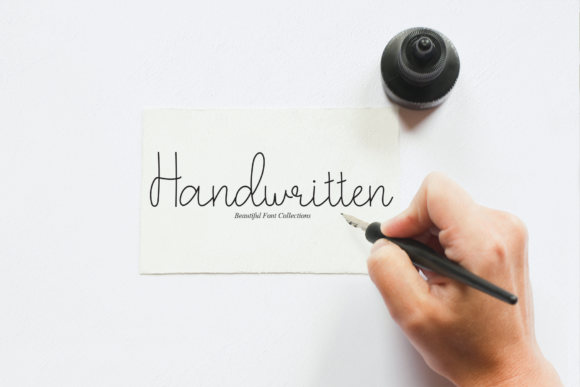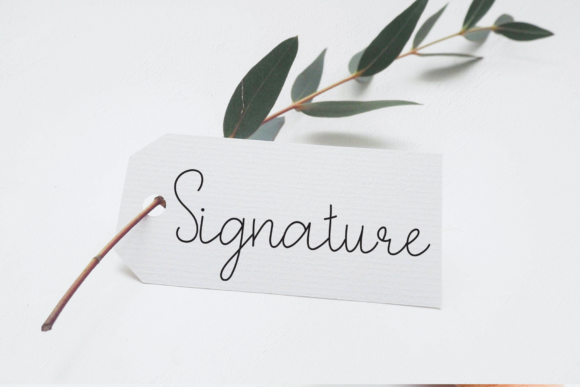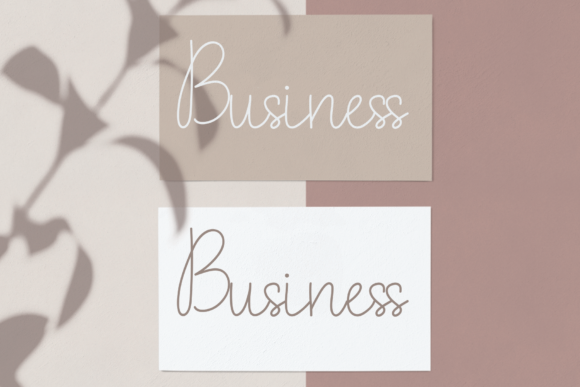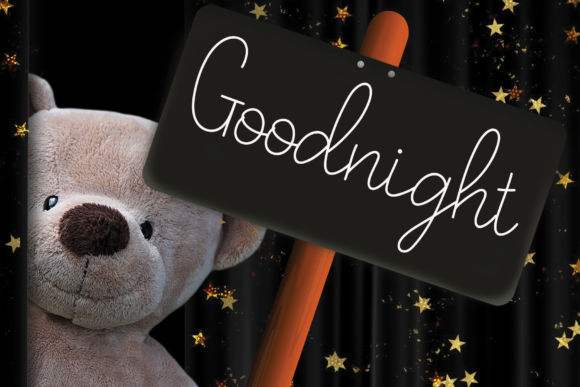
Introducing Already Font: Elevate Your Designs with Elegance and Sophistication
In the world of typography, a well-crafted font can make all the difference in transforming a design from ordinary to extraordinary. For designers and crafters seeking a touch of elegance and contemporary flair, Already Font emerges as a stellar choice. This beautiful script font is meticulously designed to bring a perfect balance of form and function, enhancing the aesthetic appeal of any project it becomes a part of.
The Essence of Already Font
Already Font is characterized by its elegant script style, imbued with a contemporary feel that resonates with modern design sensibilities. It strikes a perfect chord between being not too thin and not too bold, making it versatile for a wide range of applications. Whether you’re working on a branding project, a wedding invitation, a fashion blog, or any other creative endeavor, Already Font promises to add a sophisticated touch that elevates your work.
Balanced and Varied: The Design Philosophy
The design of Already Font is rooted in a deep understanding of typographic balance and variation. The creator has focused on ensuring that the font is neither too delicate nor too overpowering. This balance ensures that your text remains legible and visually appealing across different sizes and applications. Moreover, the varied strokes and elegant ligatures in Already Font contribute to its unique charm, allowing designers to craft compelling narratives through their typography.
Perfect for a Myriad of Projects
The versatility of Already Font makes it suitable for an array of design projects. Here are a few examples where this font truly shines:
- Branding and Logotypes: The elegant and contemporary feel of Already Font makes it an excellent choice for logos and brand identities that aim to convey sophistication and modernity.
- Wedding and Event Stationery: For wedding invitations, save-the-date cards, and other event-related materials, Already Font adds a touch of class and romance.
- Fashion and Beauty: The font’s stylish and up-to-date appearance makes it perfect for fashion blogs, beauty product packaging, and advertising materials in the fashion industry.
- Packaging and Product Design: For product labels and packaging that require a blend of modernity and elegance, Already Font serves as an excellent typographic solution.
Why Choose Already Font?
There are several reasons why designers and crafters are gravitating towards Already Font:
- Legibility: Despite its elegant nature, the font maintains high legibility, making it functional for both headings and body text.
- Versatility: It can be used in a variety of contexts, from digital platforms to print materials.
- Emotional Connection: The warmth and sophistication of Already Font help in creating an emotional connect with the audience.
Already Font stands out in the realm of script fonts due to its elegant design, contemporary appeal, and versatile application. Whether you’re a professional designer or a DIY crafter, this font has the potential to elevate your projects to new heights of aesthetic excellence. By incorporating Already Font into your design arsenal, you’re not just choosing a typeface; you’re embracing a design philosophy that values beauty, balance, and effectiveness. So, dive into the world of sophisticated typography with Already Font and discover the transformative power it can bring to your creative projects.